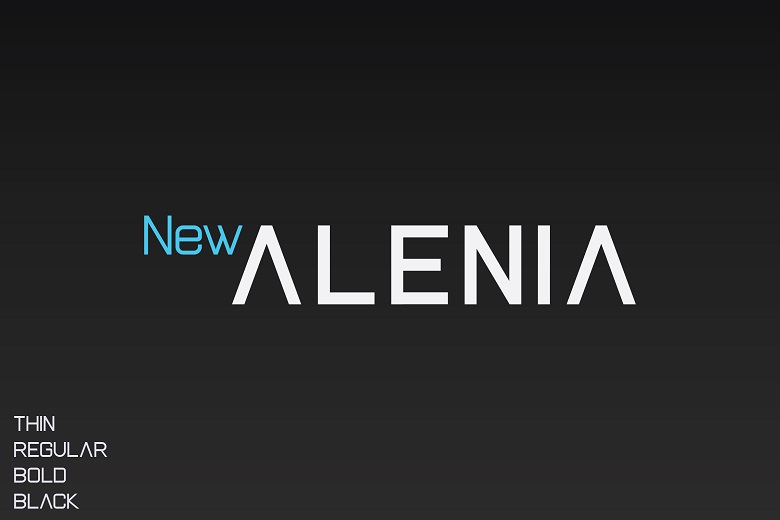
New Alenia Font
The font is named as New Alenia which we would consider as a modern and cool sans serif typeface. Whenever it will be used on a poster, flyer or any printed material, it will definitely enhance the beauty of the item. Design with this font and see what it has to offer, since there is no other one like it. Typology is proper for logos, greeting cards, quotes, posters, branding, name cards, stationery, design titles, blog headers, art quotes.
New Alenia Sans Serif Font Family